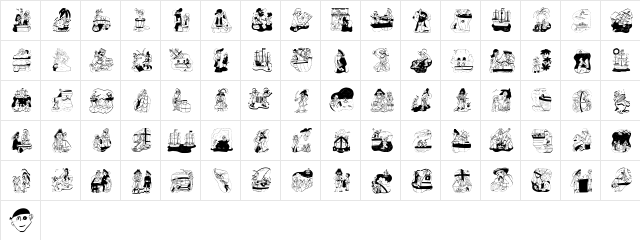
PiratesTwo Regular Font Preview
PiratesTwo Regular
Design Context for PiratesTwo Typeface
PiratesTwo is a composed and adaptable typeface that performs quietly and consistently across a wide range of design contexts.